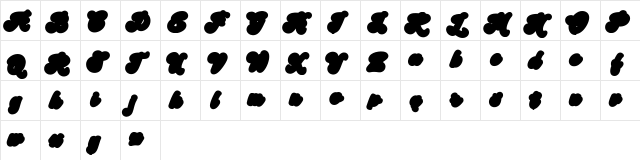
Handy Script Extrude Regular
Design Context for Handy Script Extrude Typeface
Handy Script Extrude flows with the natural rhythm of handwritten lettering, making it ideal for designs that call for warmth and personal expression.
Font Pairing: Combine Handy Script Extrude with a simple geometric sans for maximum contrast — the tension between flowing curves and clean structure is a classic typographic pairing.
Pro Tip: Pair Handy Script Extrude with a clean sans-serif for supporting text. The contrast between fluid script and geometric structure creates an elegant typographic hierarchy.